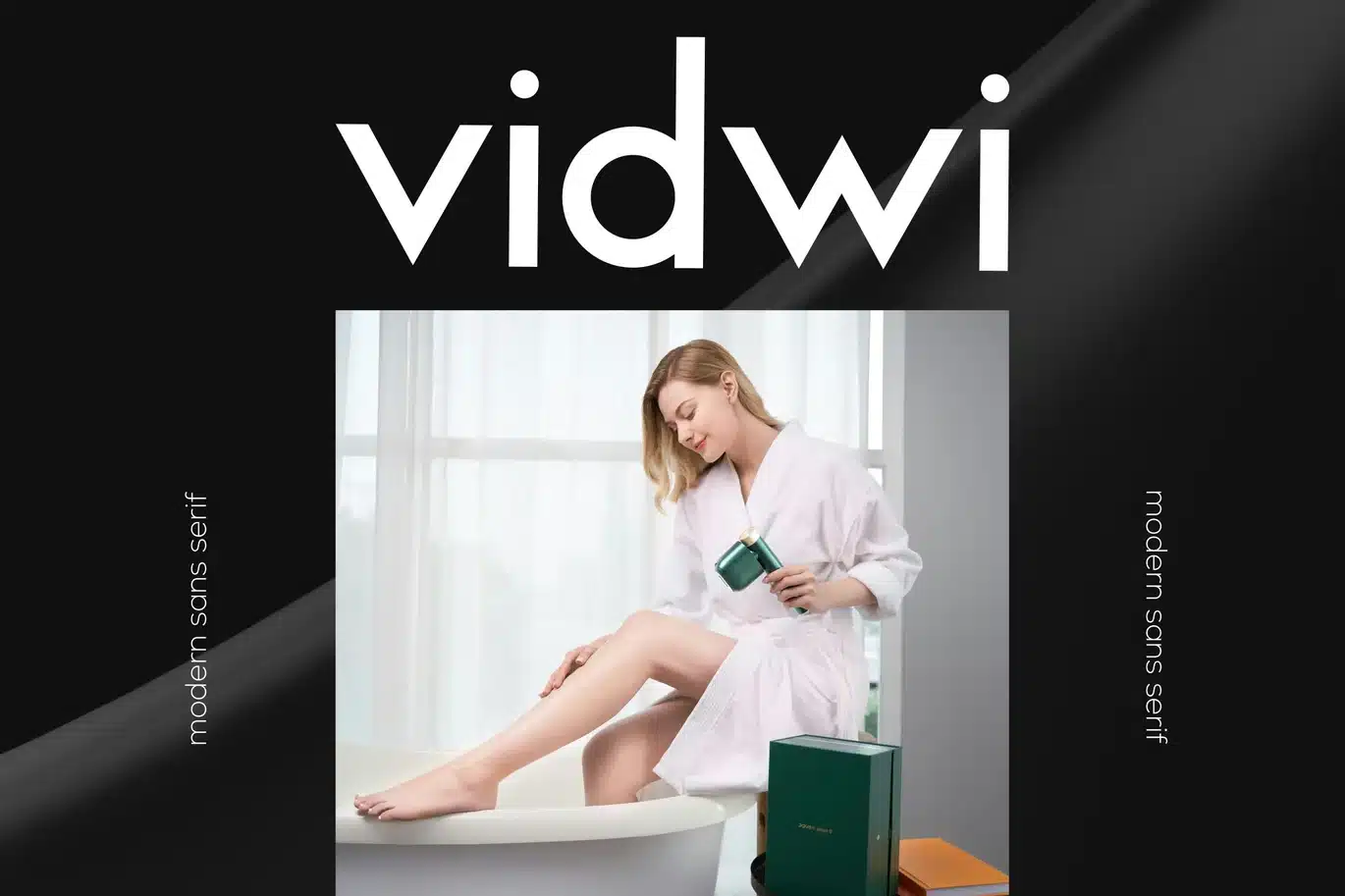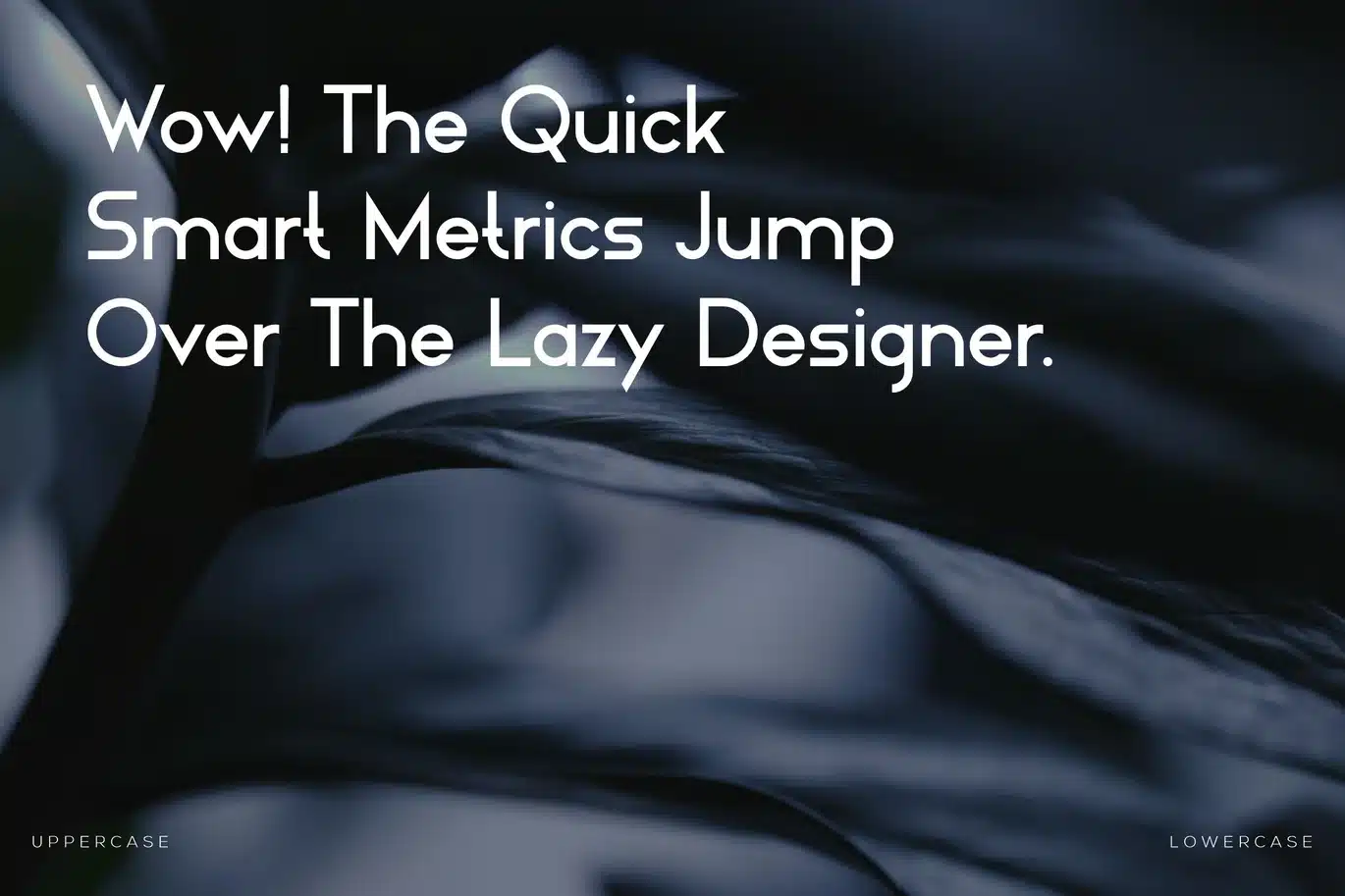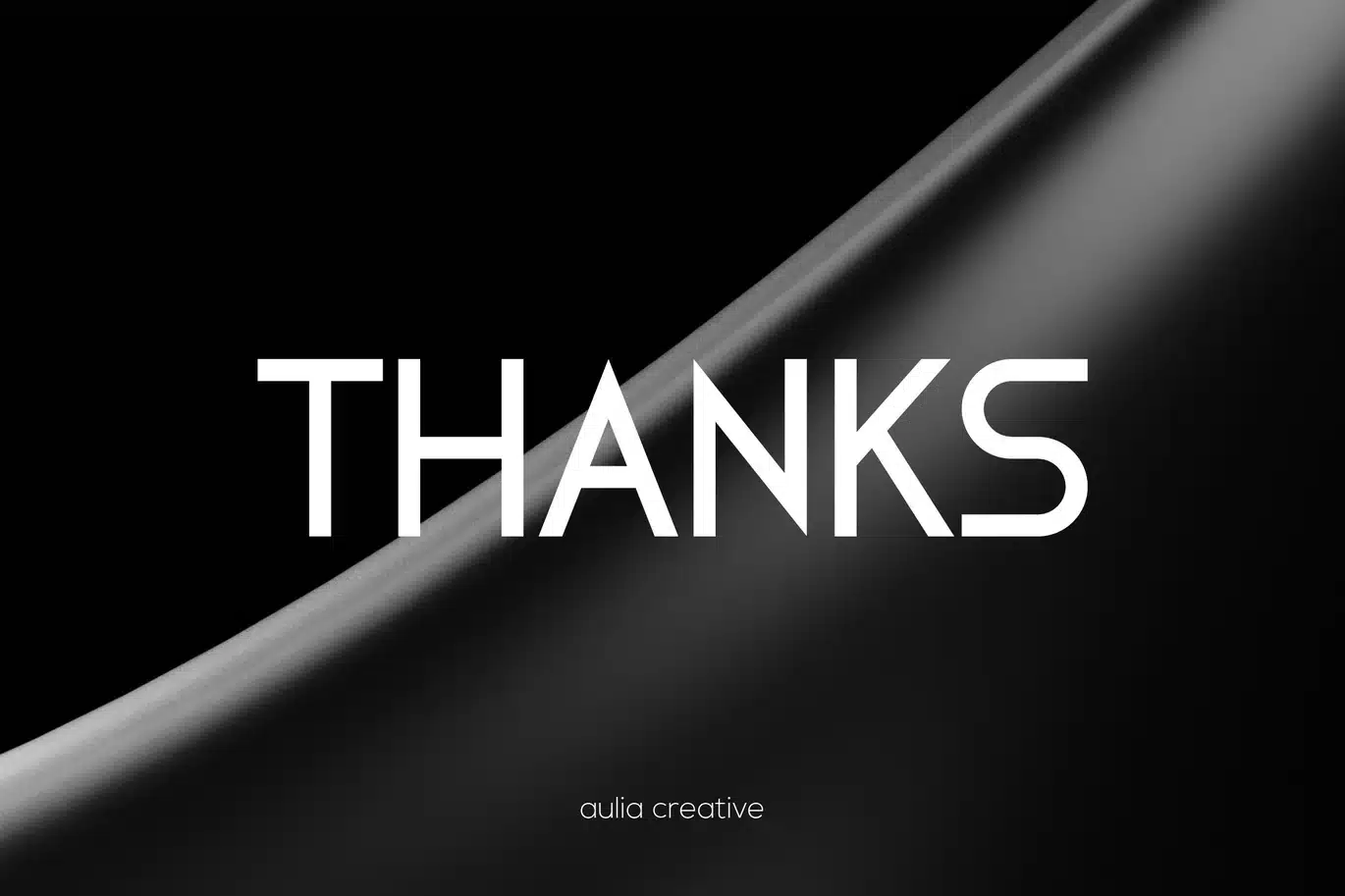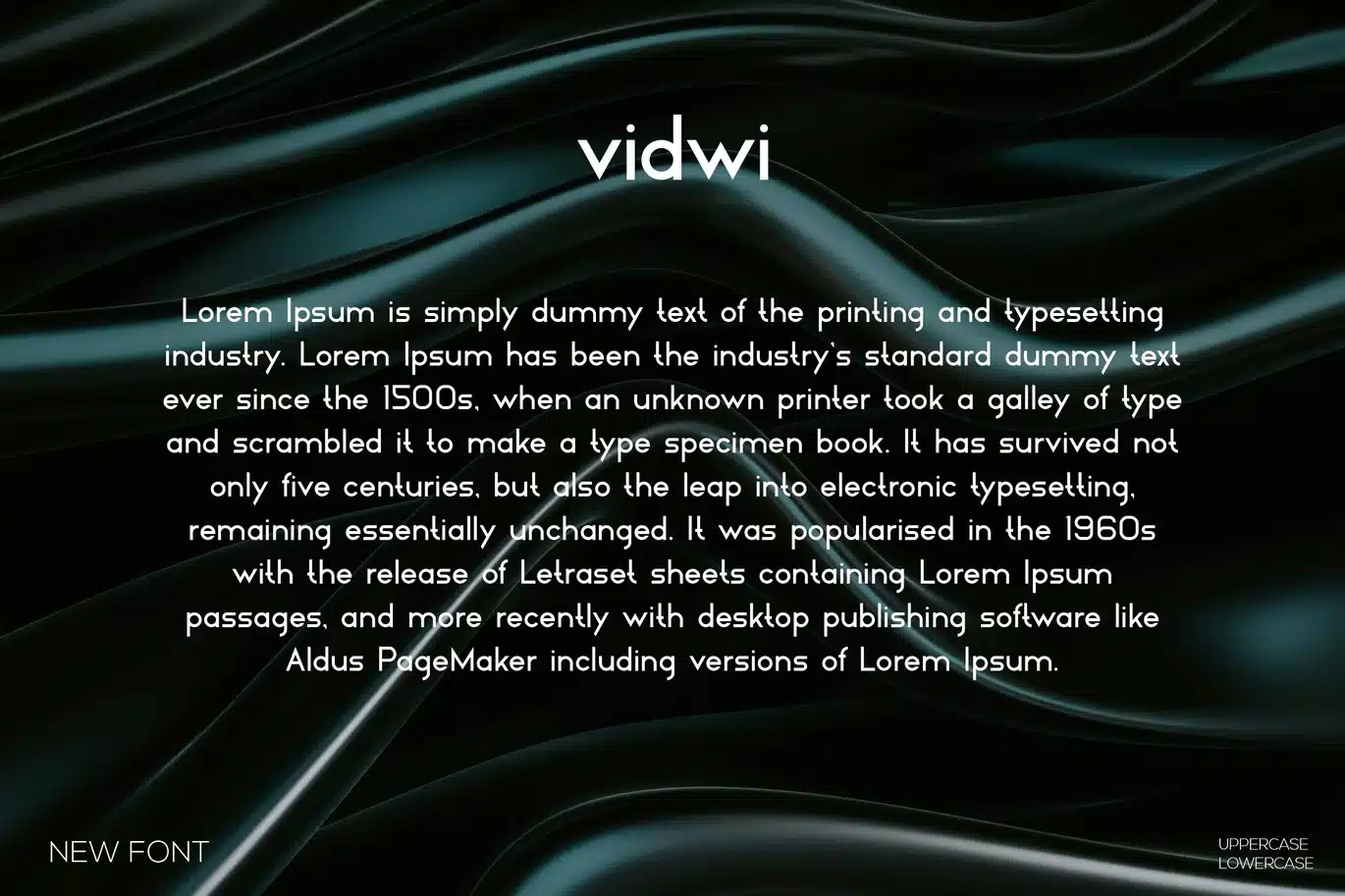
Vidwi – Sans Serif Font
Introducing our new product Vidwi - Sans Serif
Vidwi - Sans Serif Font is and awesome and authentic display font.
- Number & Symbol
- UPPERCASE, lowercase